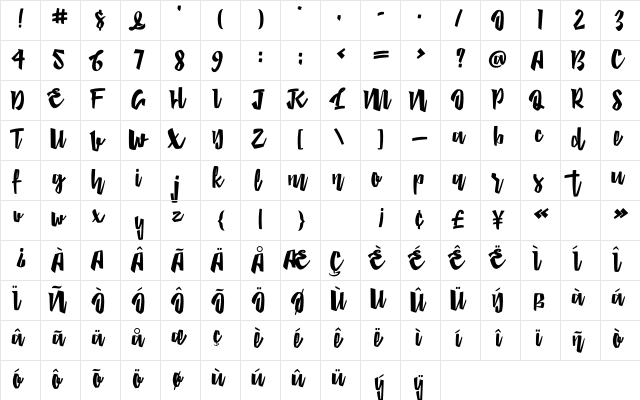
Besties Regular
Design Context for Besties Typeface
Besties is a composed and adaptable typeface that performs quietly and consistently across a wide range of design contexts.
Pro Tip: Pair Besties with a font of contrasting weight or personality to build a more expressive typographic hierarchy.